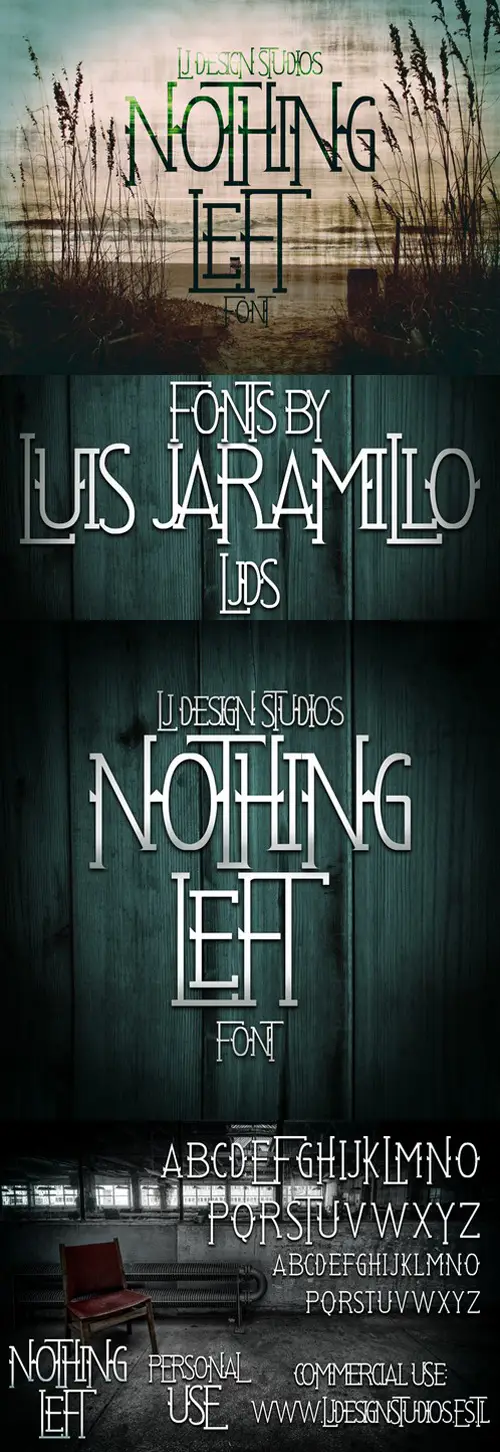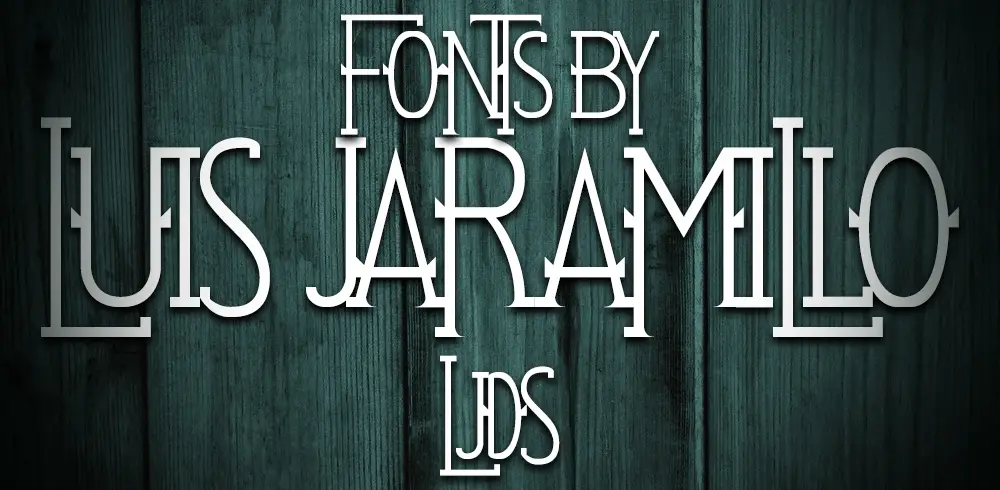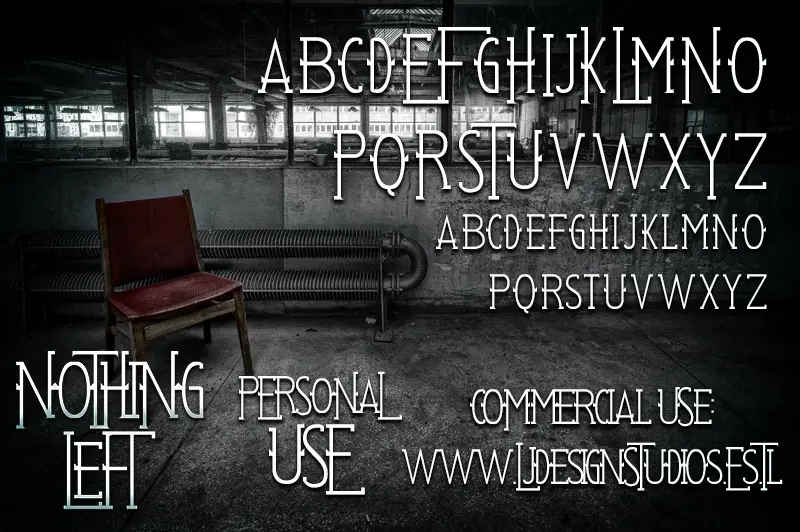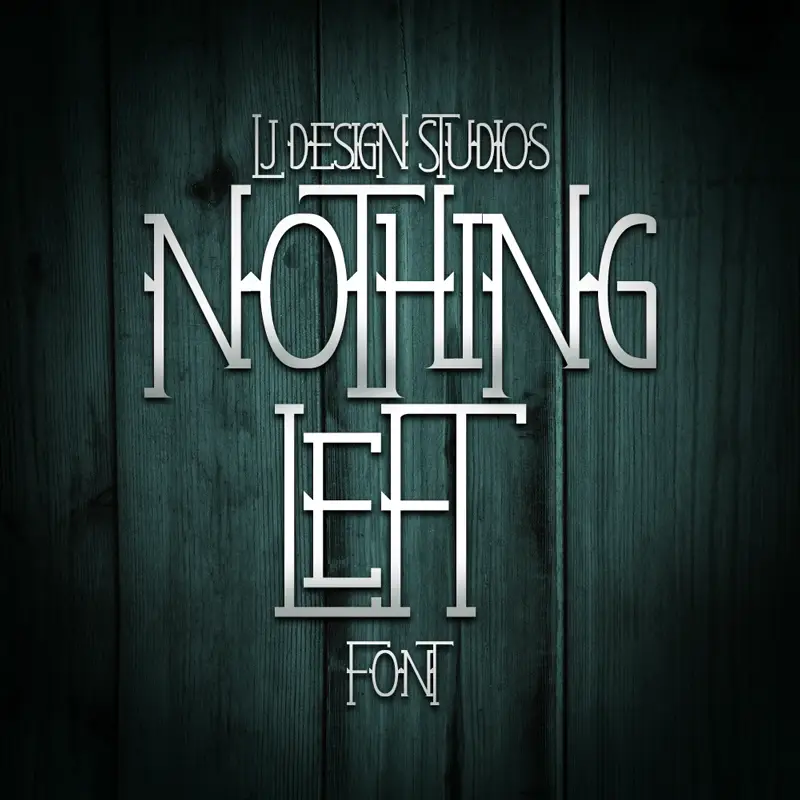
Nothing Left Font
Introducing the Nothing Left Font, a unique typeface designed to make a statement in any design project. This font features a blend of modern and classic styles, offering versatility for various applications.
• Multiple weights for flexibility
Ideal for branding, logos, web design, print materials, and user interfaces, the Nothing Left Font adds a distinctive touch to your projects.